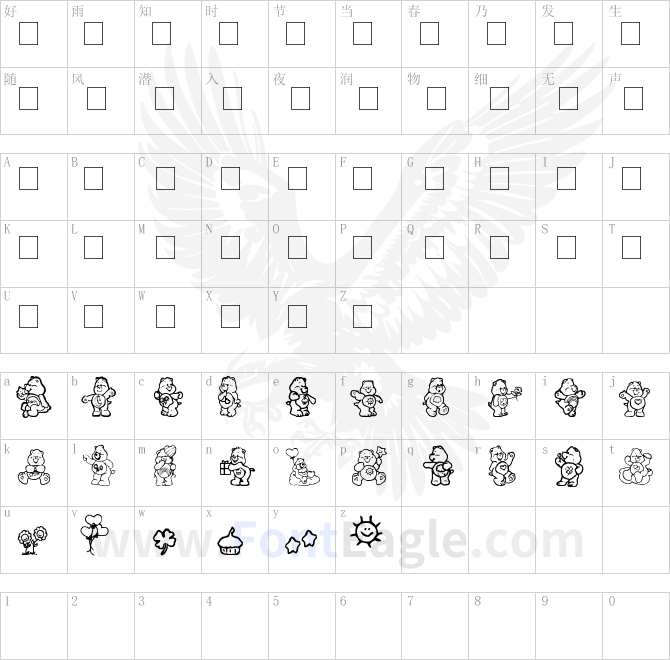
CarebearsbyIacy is a great font, widely used in graphic design, single-page menu design, poster design and other fields, and is deeply loved by designers.CarebearsbyIacy download.